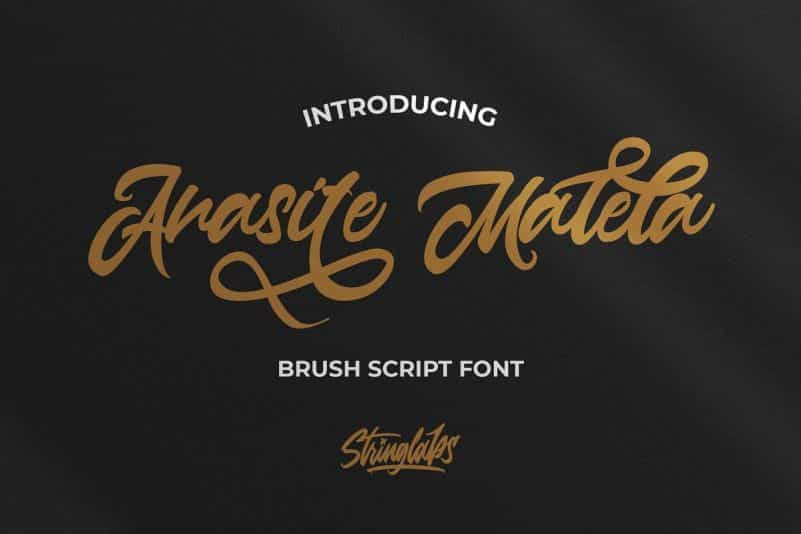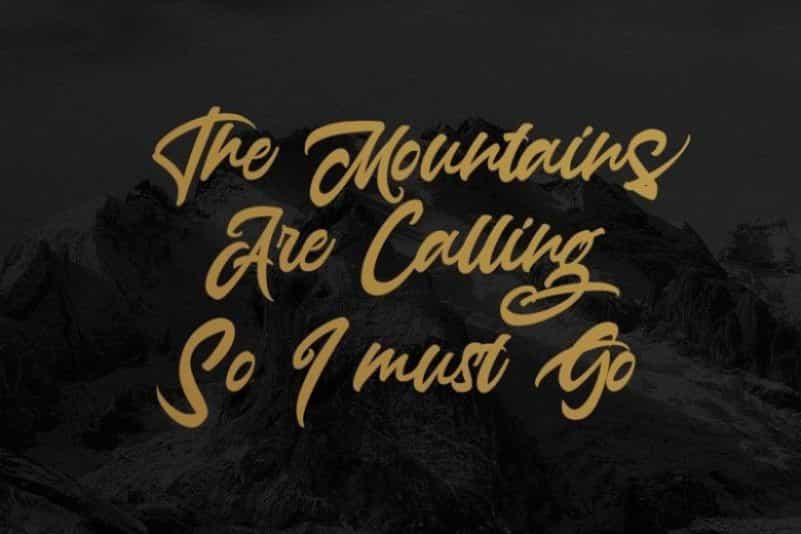
Anasite Malela is a fat script font of boldness with the style of Groovy Retro. This font is the one that has a unique design taste and at the same time, it combines with classic retro style of the 80s, trendy, vintage and sporty.